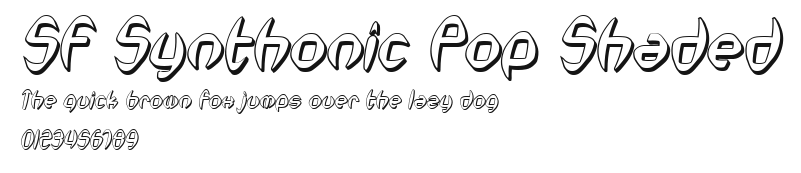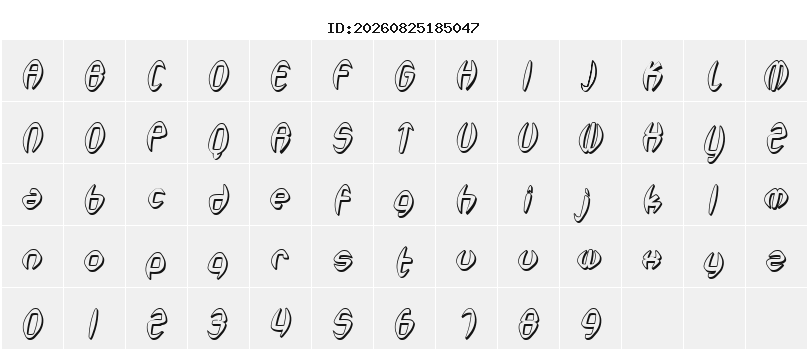
• Font Name: SF Synthonic Pop Shaded
• Font Style: Oblique
• Full Font Name: SF Synthonic Pop Shaded Oblique
About SF Synthonic Pop Shaded.ttf
SF Synthonic Pop Shaded.ttf is a modern, elegant sans-serif font designed for ultimate readability and visual harmony. Perfect for branding, headlines, web design, and print materials.